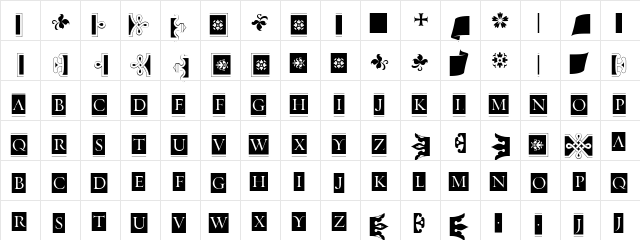
RequiemOrnaments Medium
Design Context for RequiemOrnaments Typeface
RequiemOrnaments brings ornamental detail and strong personality to headlines and identities, where visual impact matters more than quiet functionality.
Font Pairing: Pair with a clean neutral sans-serif for body copy to let RequiemOrnaments's character lead without overwhelming the composition.
Pro Tip: Use RequiemOrnaments exclusively at display sizes — it was designed to be seen, not read at length. Let a neutral companion handle body copy.